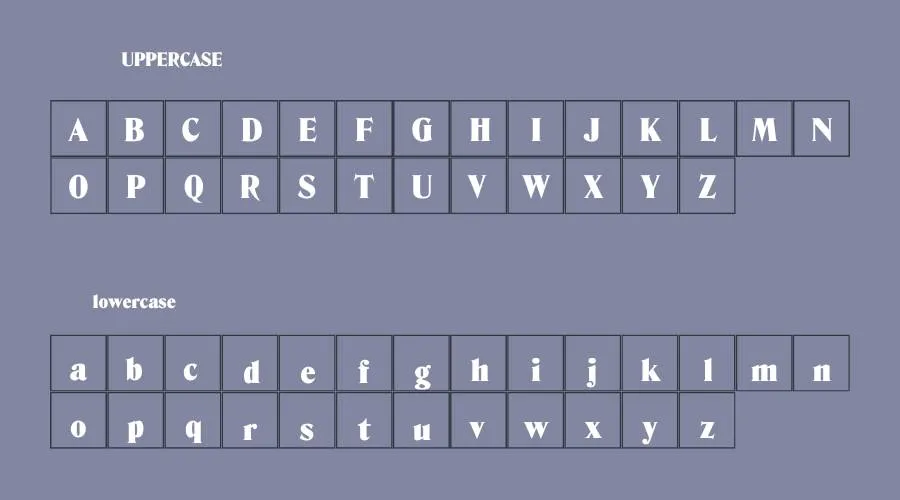
About Kazan Display SSi Font
The Kazan Display SSi Font is under the category of display texture family with a unique and stunning texture look impression. You may easily get it free from this unique site. It was created by AZFonts, he is a famous graphic designer and already has created many other fonts.
The subfamily of this typeface is regular and includes various types of styles and weights such as bold, italic, and regular. It is the perfect choice for adobe photoshop and CSS.